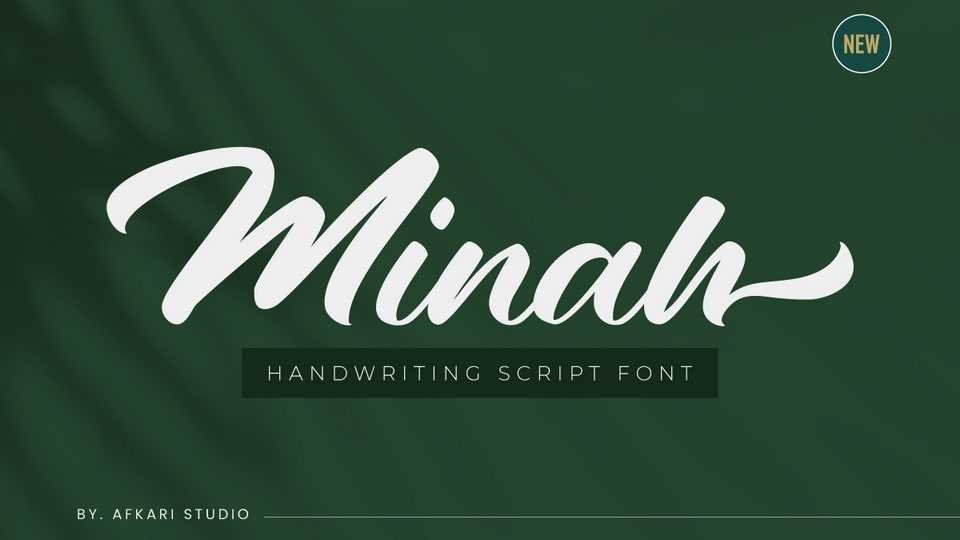
Download Minah font, a modern script typeface made as natural as possible. Minah is perfect to be applied in logo brands, invitations, labels, magazine titles, books, greeting and wedding cards, packaging, fashion or any type of advertising purpose.
Designer: Afkari Studio